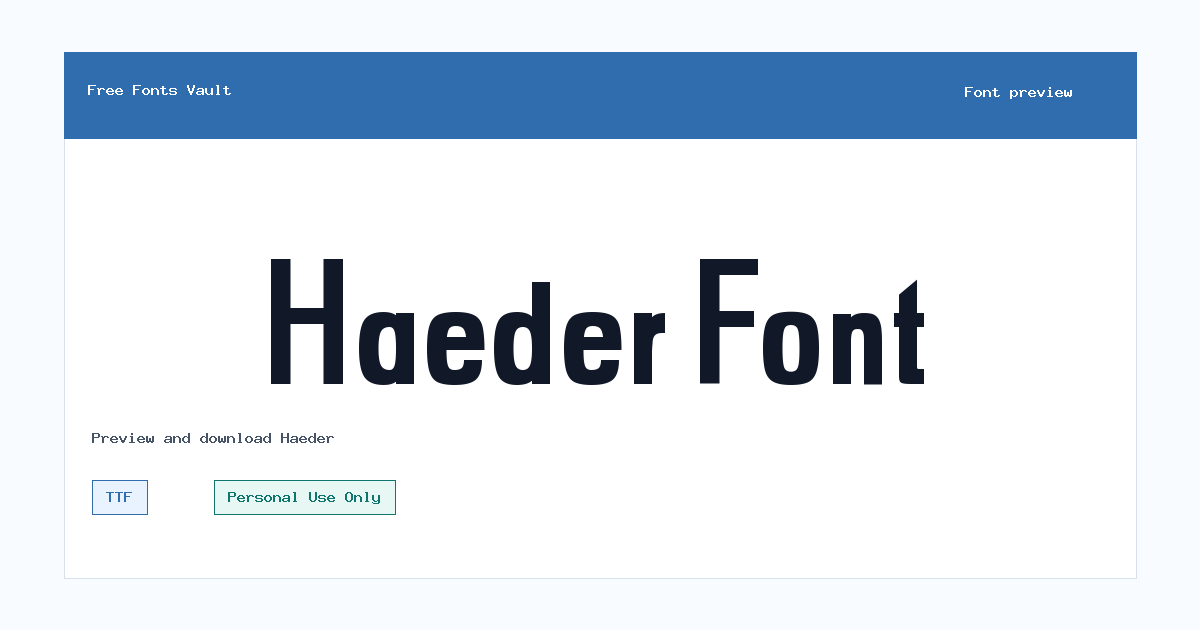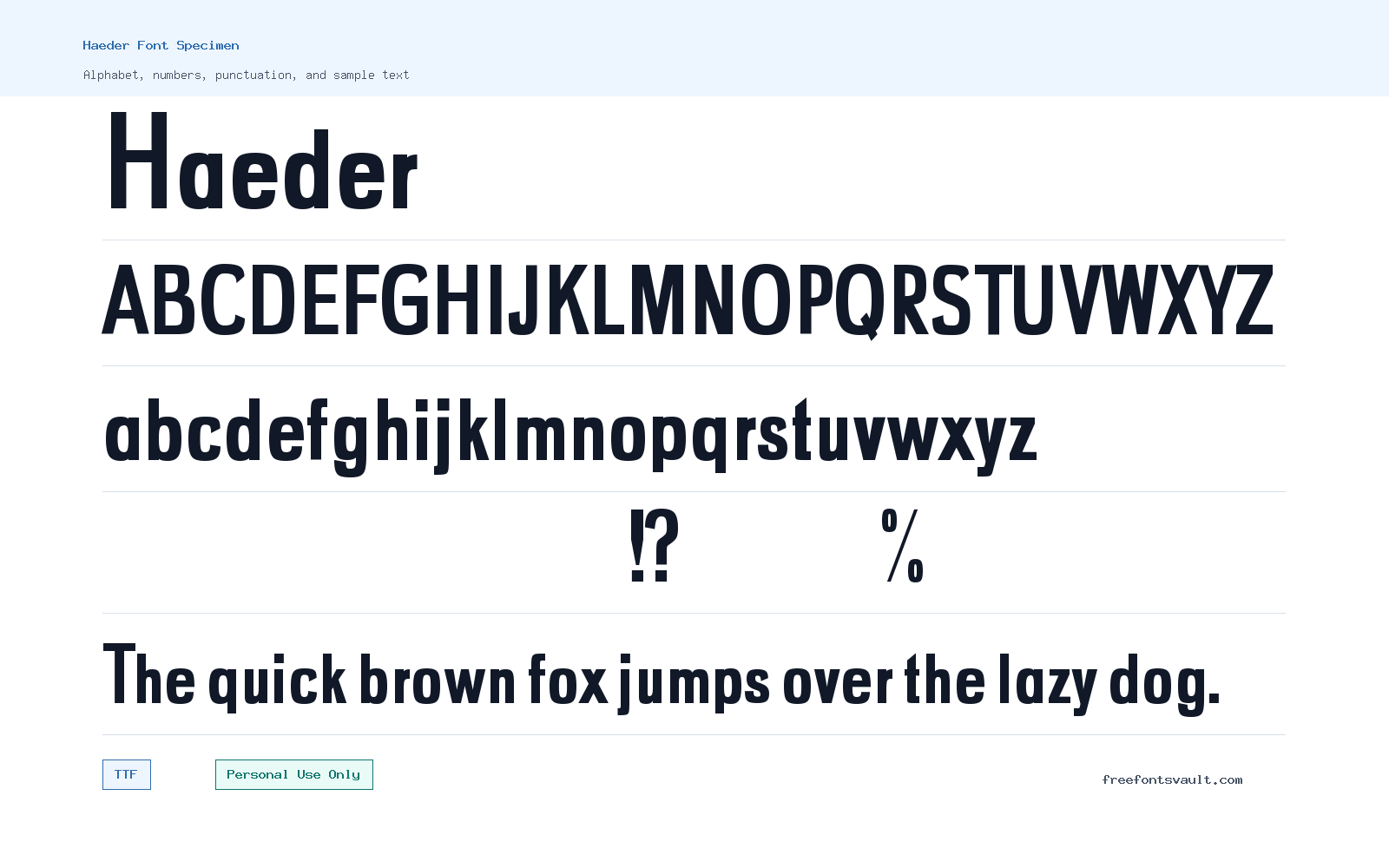
Haeder
Haeder font.
Haeder is a sans serif font with a Regular TTF style, made for visitors who want to test clean lettering in a live preview before using it in a personal project.
About Haeder Font
Haeder works best when you need a simple sans serif voice without turning the design into the main event. Because the font file listed for this family is a Regular weight, it is a sensible option to try in straightforward headings, short labels, small blocks of display text, and mockups where a calm, readable structure matters more than heavy decorative detail. Use the preview field to check how the letters behave with your exact words, especially if your project uses brand names, mixed case, numbers, or punctuation.
For best results, start by testing Haeder at the size you actually plan to use. A font that feels clear in a large title can behave differently in captions, buttons, or dense paragraphs. Try it in a short headline, then test a sentence with commas, numbers, and common symbols. Since only one Regular TTF variant is listed, you will not have built-in bold, italic, or multiple weight choices from this family. If your layout needs contrast, pair Haeder with a more expressive display face for titles or a sturdy text font for longer reading.
- Sans serif styling suited to clean headlines, labels, mockups, and short text settings
- Personal posters, social graphics, title cards, and simple layout mockups
- Short headings, navigation labels, preview text, and design drafts that need a clean sans serif look
What is Haeder best used for?
Haeder is best tested for short, clean text such as headings, labels, posters, social images, title cards, and personal design mockups.
Should I use Haeder for long paragraphs?
Test it first at the exact size and spacing you plan to use. With only a Regular style listed, it may be more practical for short text and display use than for complex editorial layouts.